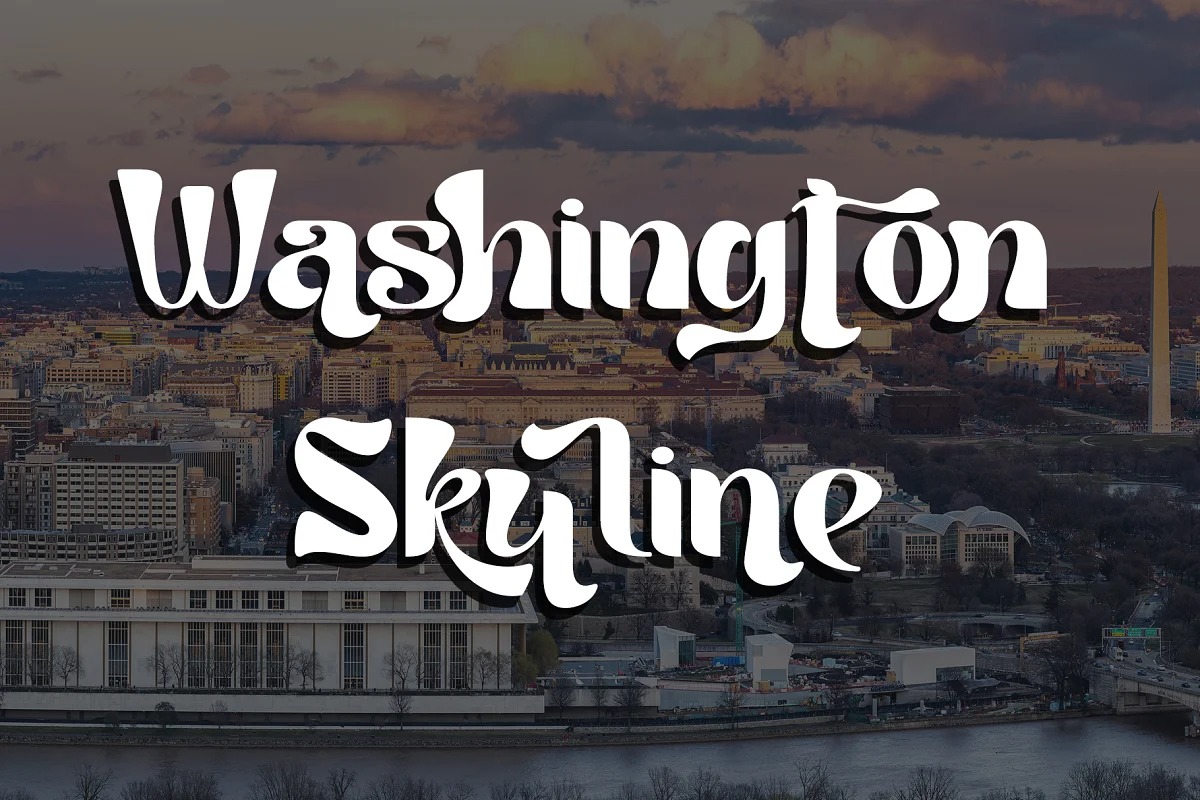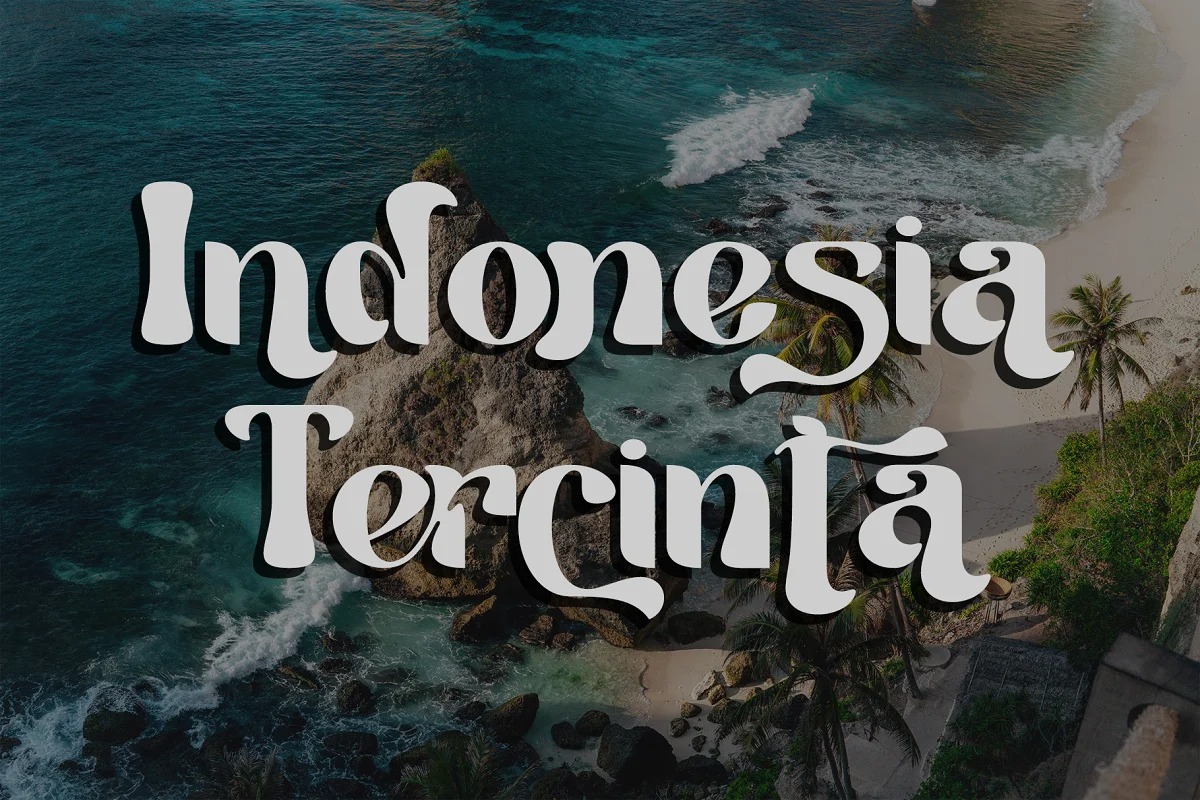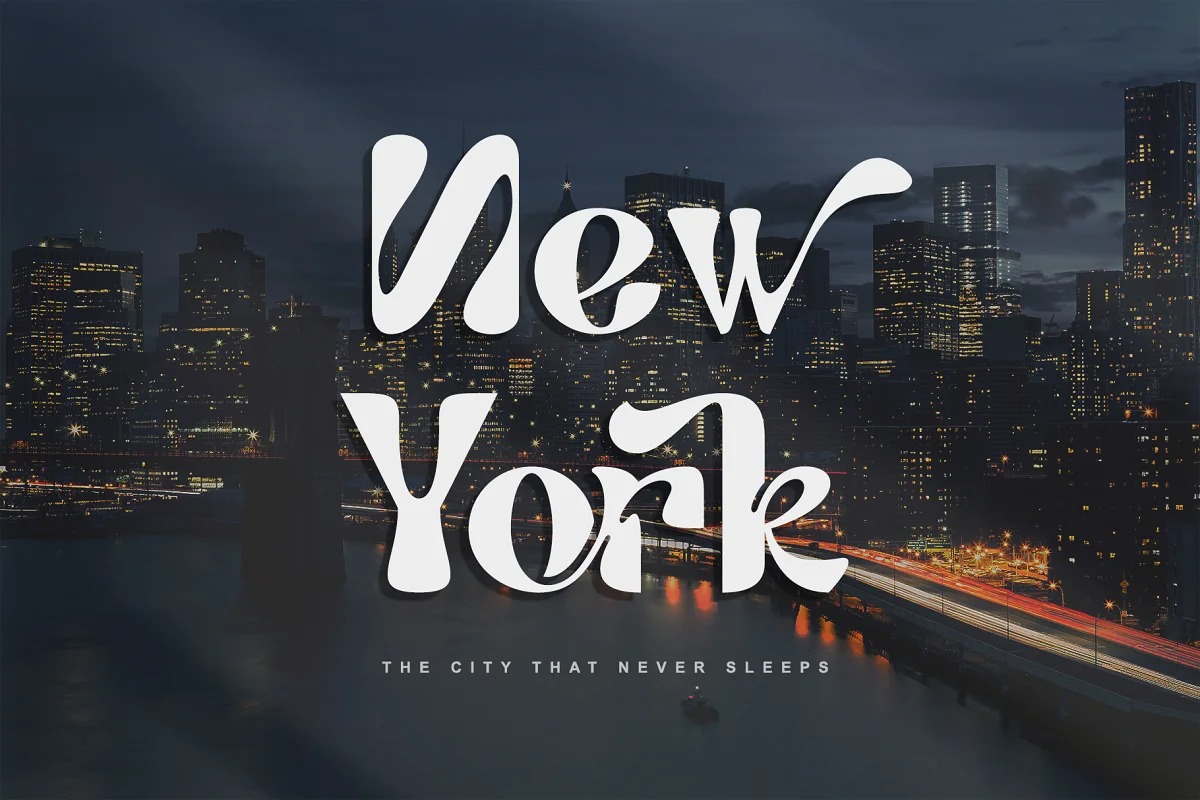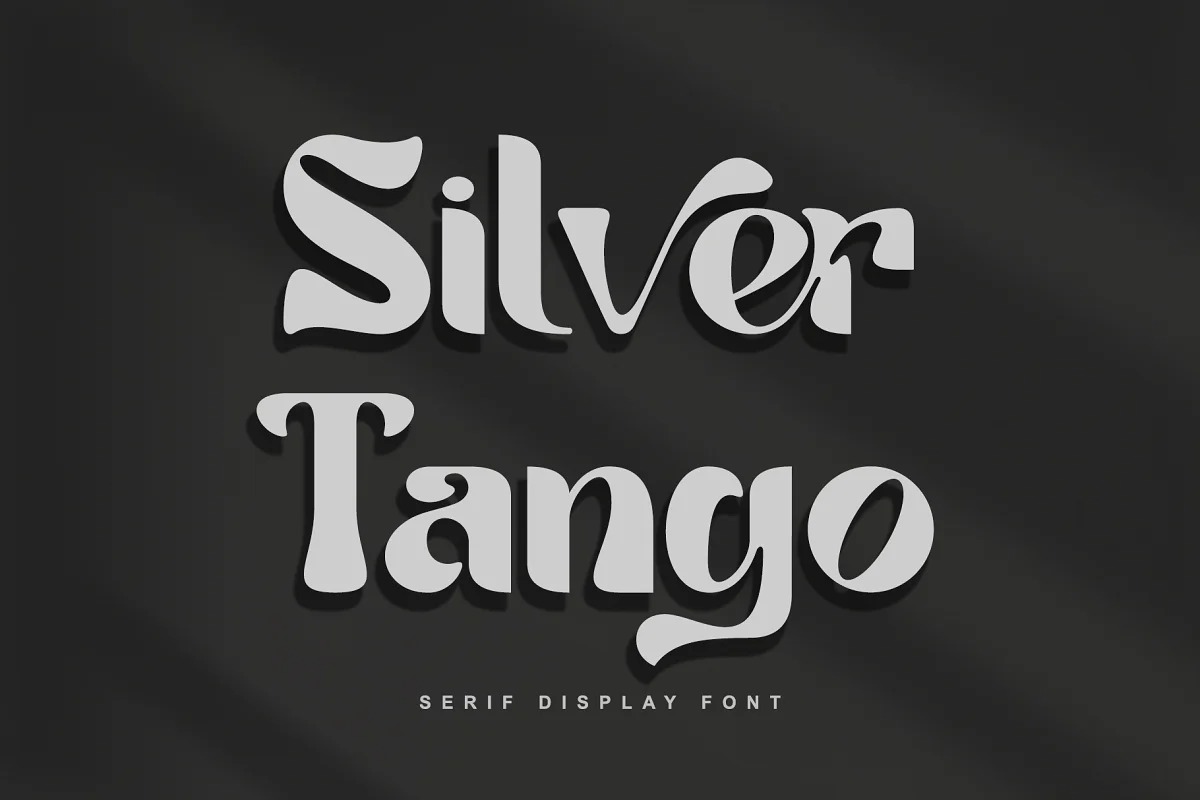
Tango Silver Display Font is a fat display typeface with a lingering retro feel. It has a modern and strong look. this font is suitable for many projects, modern or even retro vintage design, branding, crafting, sticker, sublimation, wedding invitation, advertising, vintage mood boards, logotype, packaging, titles, editorial design, and many more. This font is PUA encoded, which means you can easily access all of the glyphs and swashes!